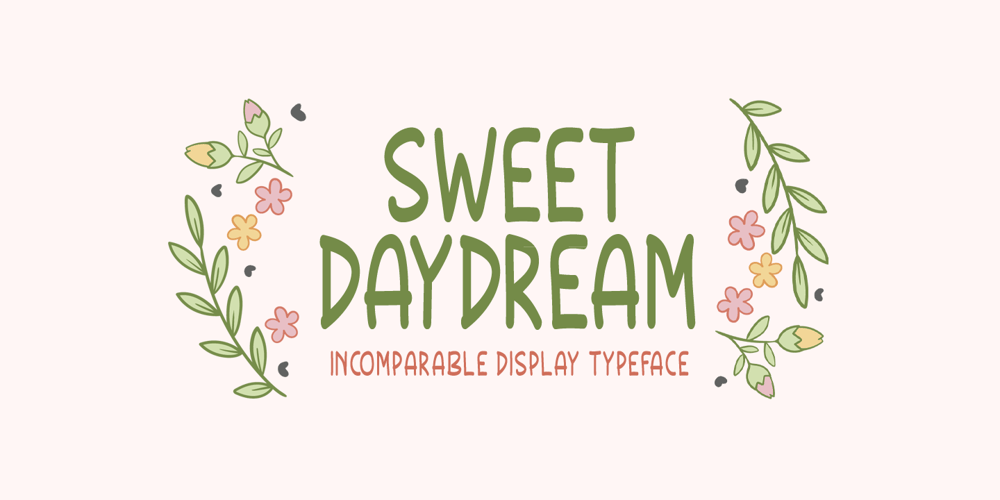
Sweet Daydream Font Family was designed by Md Shohail Bhuian and published by Seemly Fonts. Sweet Daydream contains 1 styles and family package options. Sweet Daydream is a brand new display font. Sweet Daydream is perfectly suited for stationery, logos, t-shirt, paper, print design, website header, photo frame, flyer, music cover, poster, image slider, and much more.